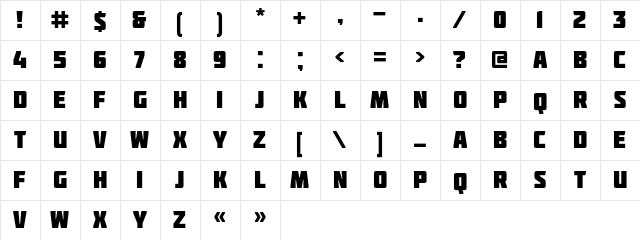
Molot Regular
| Foundry | Roman Yershov, Jovanny Lemonad |
| Designer | Roman Yershov |
Design Context for Molot Typeface
Molot is a composed and adaptable typeface that performs quietly and consistently across a wide range of design contexts.